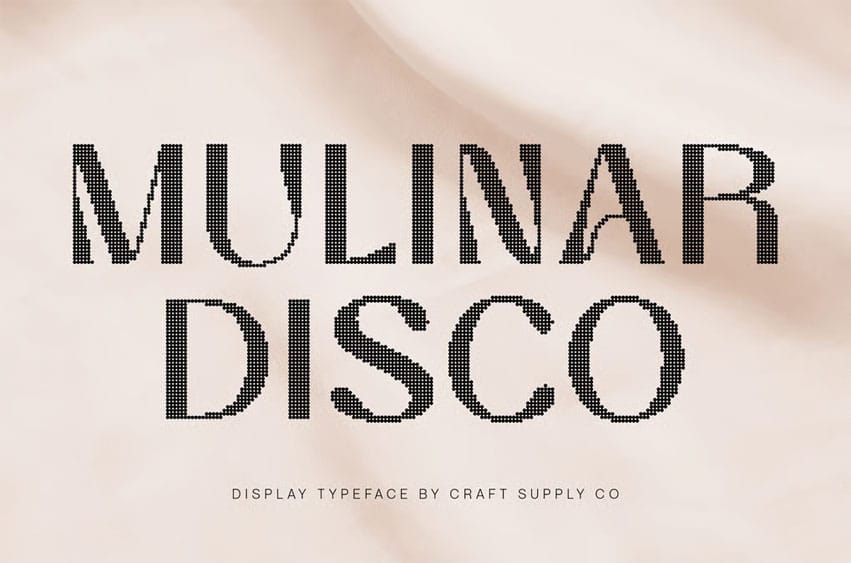
Mulinar Disco Font Trendy and Elegant Letterforms Mulinar Disco Font combines flowing Art Nouveau curves with clean, contemporary lines to create a stylish, elegant, and captivating appearance. Its organic shapes provide a sense of movement and sophistication, while the modern sans serif structure ensures clarity, readability, and versatility across a wide range of design applications.
Disco Flair for Glamorous Energy A sparkling disco effect adds visual rhythm, glamour, and dynamic energy to every character of this display sans-serif font. This subtle yet striking detail enhances the elegance of the font while giving the text a lively, eye-catching quality. Whether used for headlines, posters, or branding, the disco accents bring a sense of excitement and celebration to your designs.
Stylish, Sophisticated, and Captivating. By combining the timeless elegance of Art Nouveau curves with modern minimalism and disco sparkle, Mulinar Disco projects a trendy, refined, and memorable personality. Its balanced design is ideal for projects that require a combination of sophistication, charm, and contemporary appeal, making it perfect for creative professionals seeking something unique.
Perfect for Branding, Editorials, and Creative Projects Mulinar Disco shines in branding, posters, editorial layouts, packaging, invitations, and other creative applications. Its fusion of organic curves, clean modern lines, and disco-inspired sparkle ensures your projects appear stylish, sophisticated, and full of visual character.